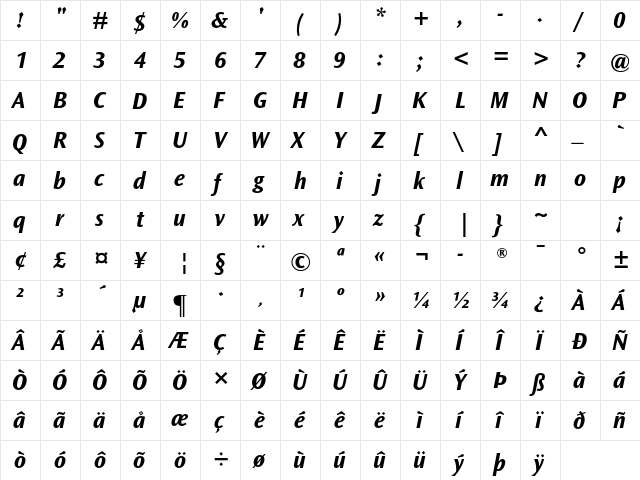
Ocean Sans MT Pro Bold Italic Font Preview
Ocean Sans MT Pro Bold Italic
| Designer | Chong Wah |
Design Context for Ocean Sans MT Pro Typeface
Ocean Sans MT Pro is a composed and adaptable typeface that performs quietly and consistently across a wide range of design contexts. Its italic angle brings a sense of urgency and motion to the letterforms. Its bold stroke weight gives it real presence on the page.
Pro Tip: Use Ocean Sans MT Pro for emphasis, pull quotes, and subheadings where its slanted energy can add rhythm to the layout.